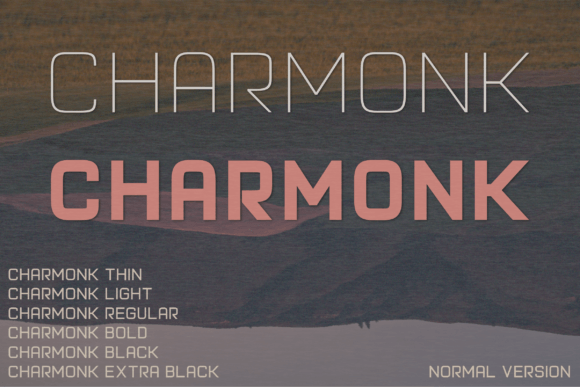
Journey into the realm of timeless elegance with Charmonk Font, a captivating sans serif collection that redefines luxury and sophistication. Crafted with the utmost precision, Charmonk effortlessly elevates your designs, whether it's a magazine, logo, or film poster.
Immerse yourself in a symphony of five distinct weights, each possessing its own unique personality. From the delicate grace of Thin to the commanding presence of Black, Charmonk adapts seamlessly to your creative vision. Experience the perfect balance of modernity and tradition, as Charmonk seamlessly blends classic elegance with a contemporary twist.
Unleash the limitless possibilities of Charmonk. Create logos that radiate sophistication, headlines that command attention, and body text that exudes effortless readability. Watch as your designs transform into masterpieces, captivating your audience with their timeless charm.
Charmonk is more than just a font; it's a gateway to a world of luxury and elegance. It's the perfect choice for designers seeking to make a lasting impression, to create designs that transcend time and trend.
Don't settle for ordinary fonts. Embrace the Charmonk experience and unlock the true potential of your designs. Let Charmonk be your muse, guiding you towards creative greatness.